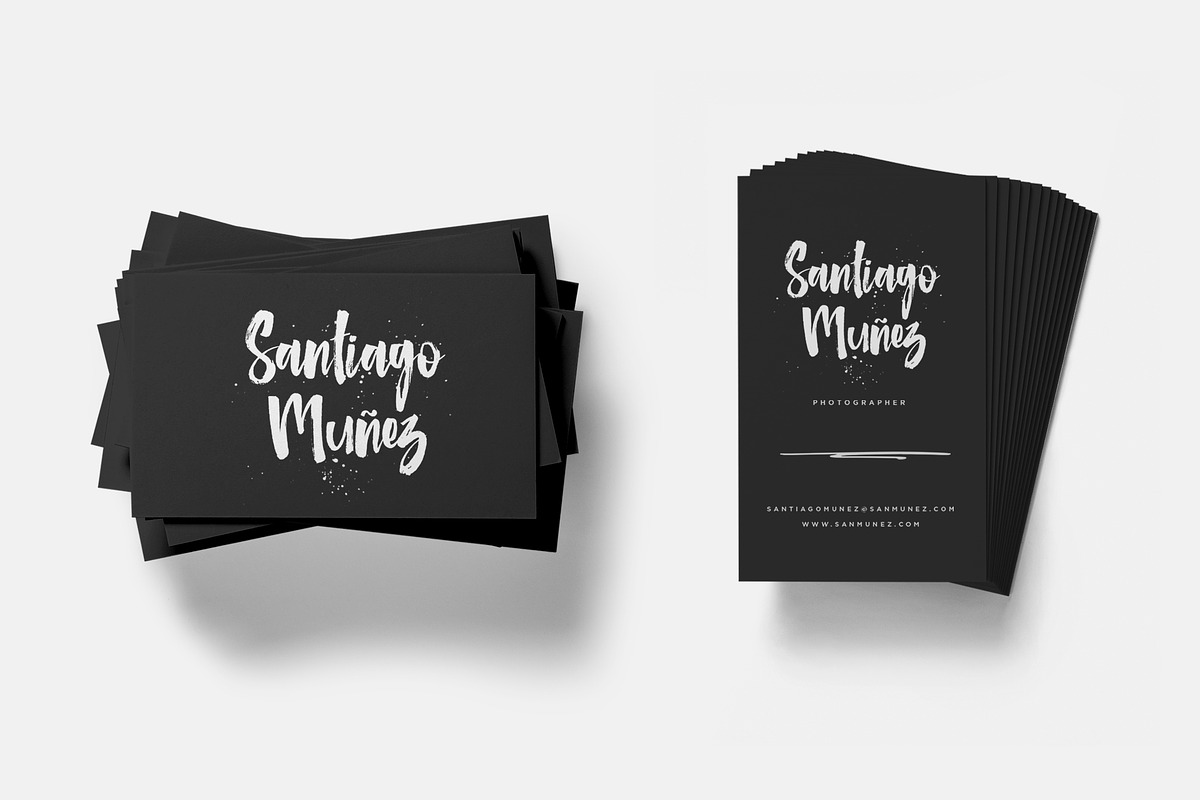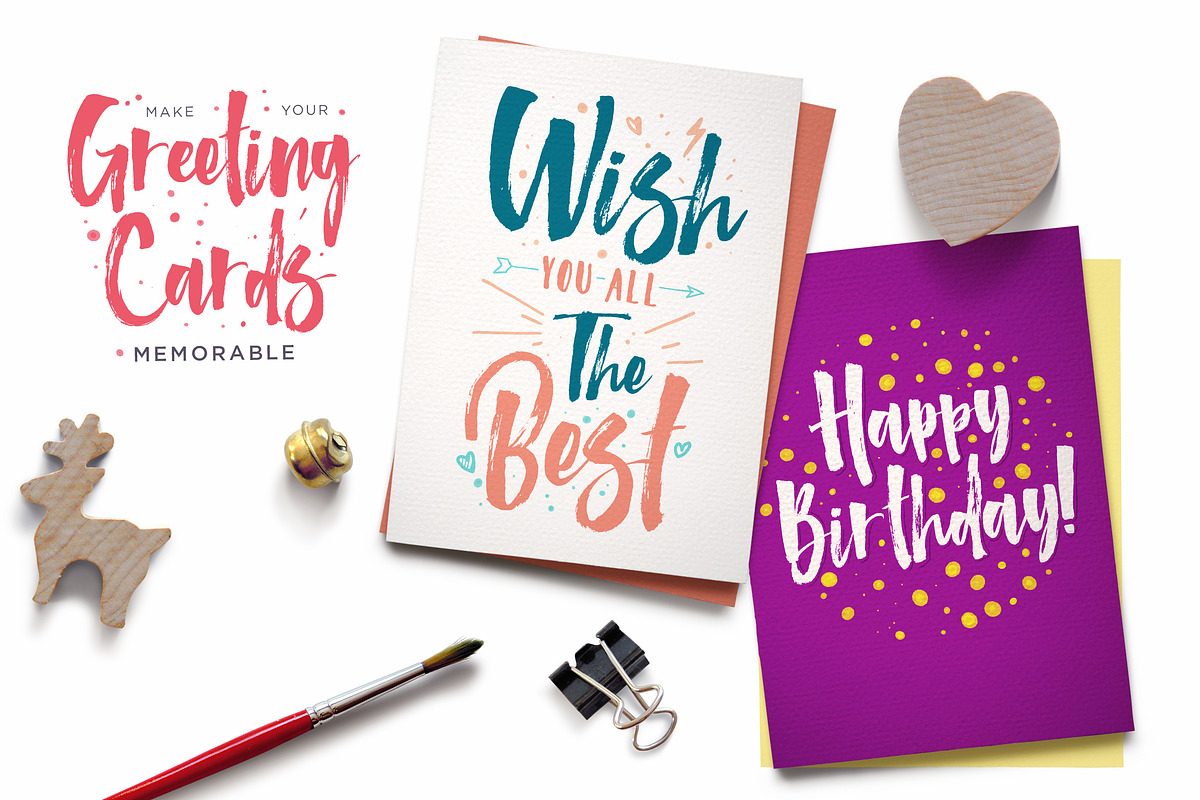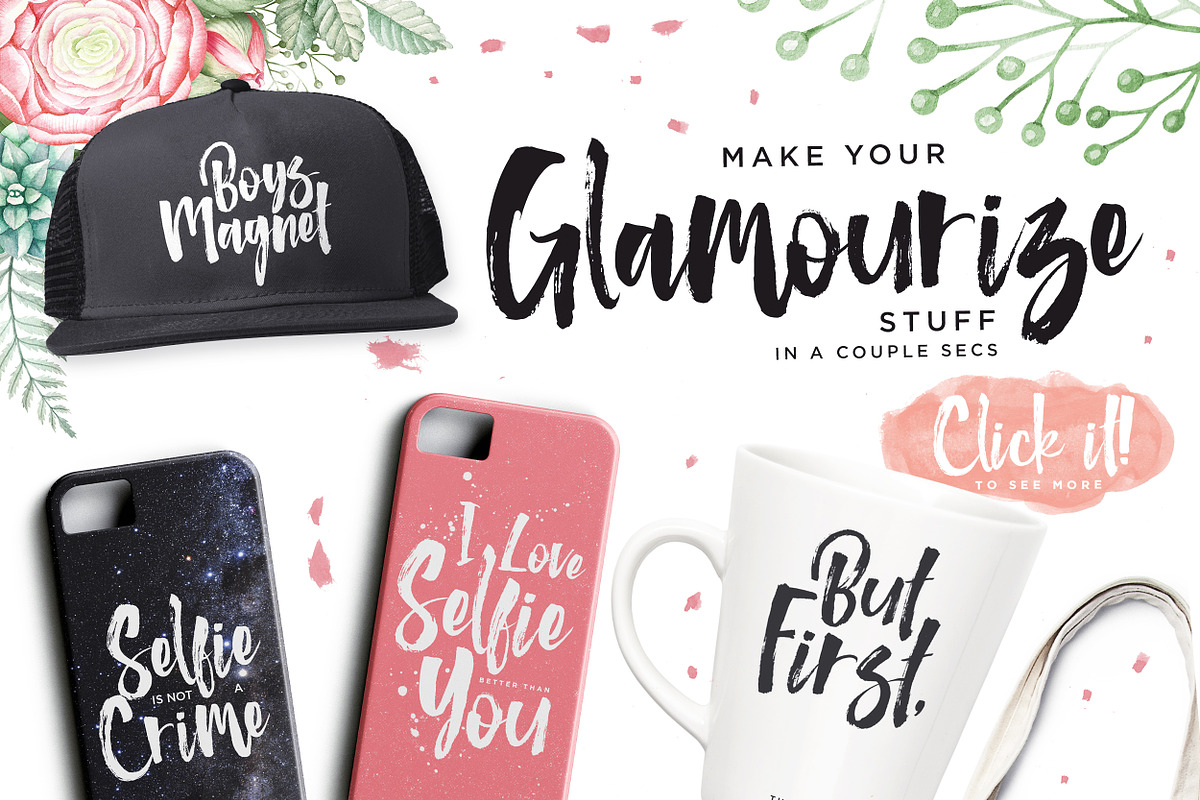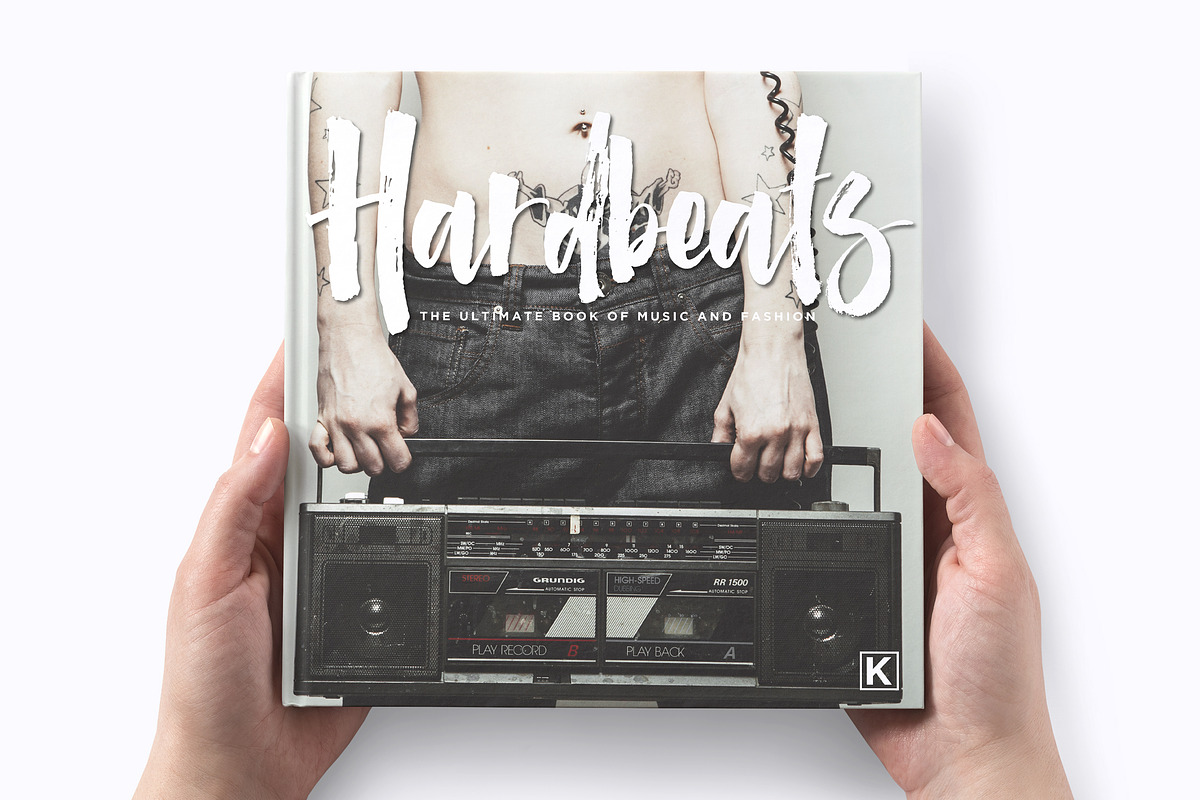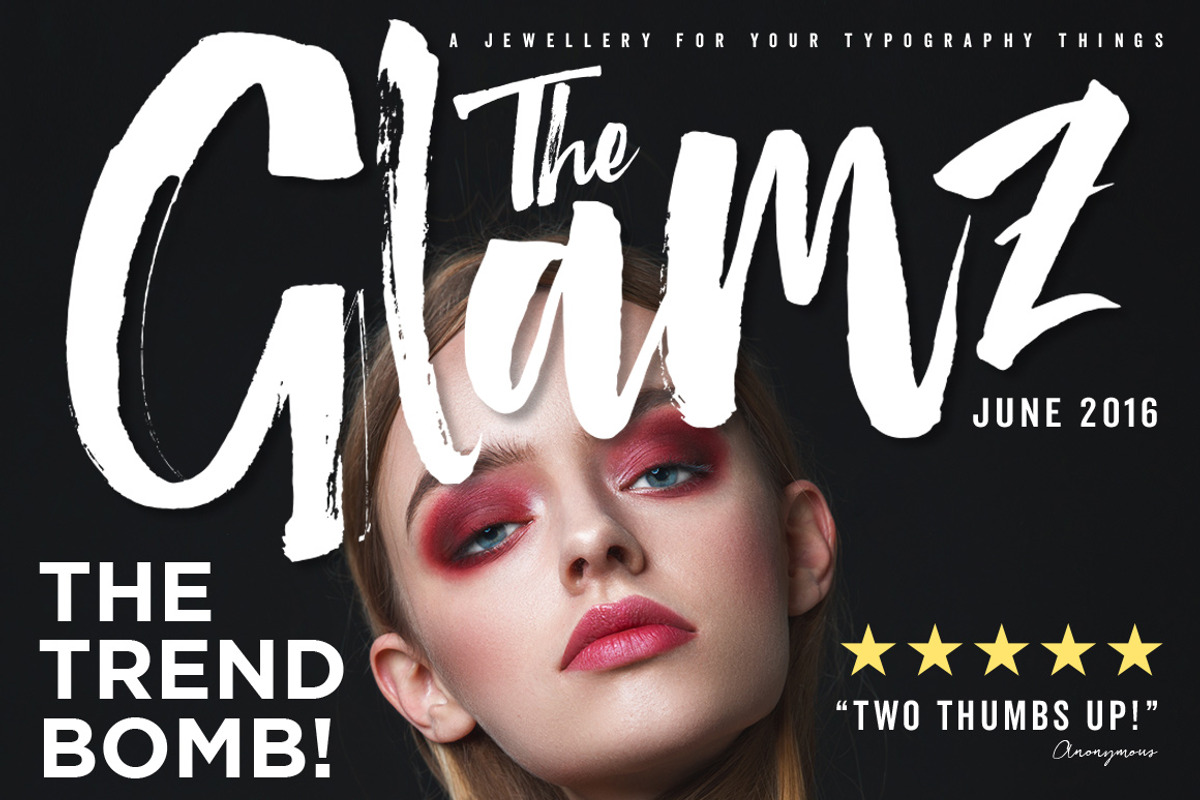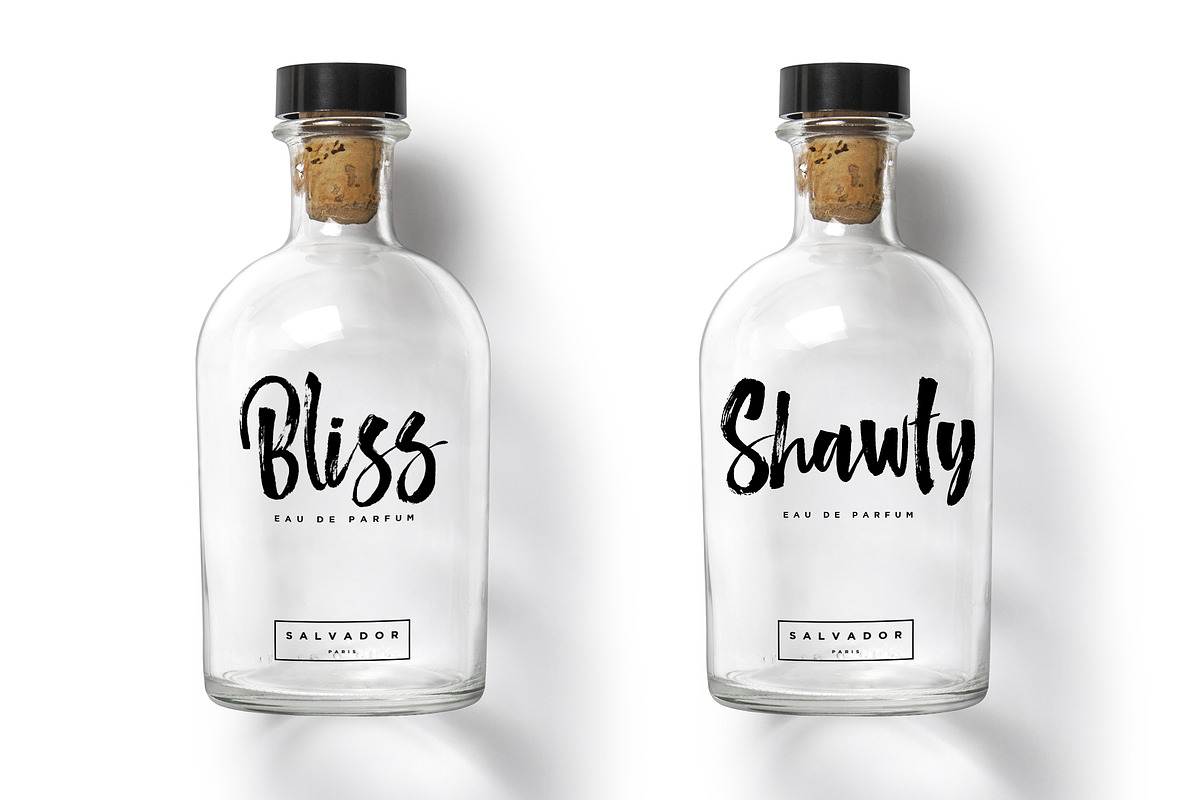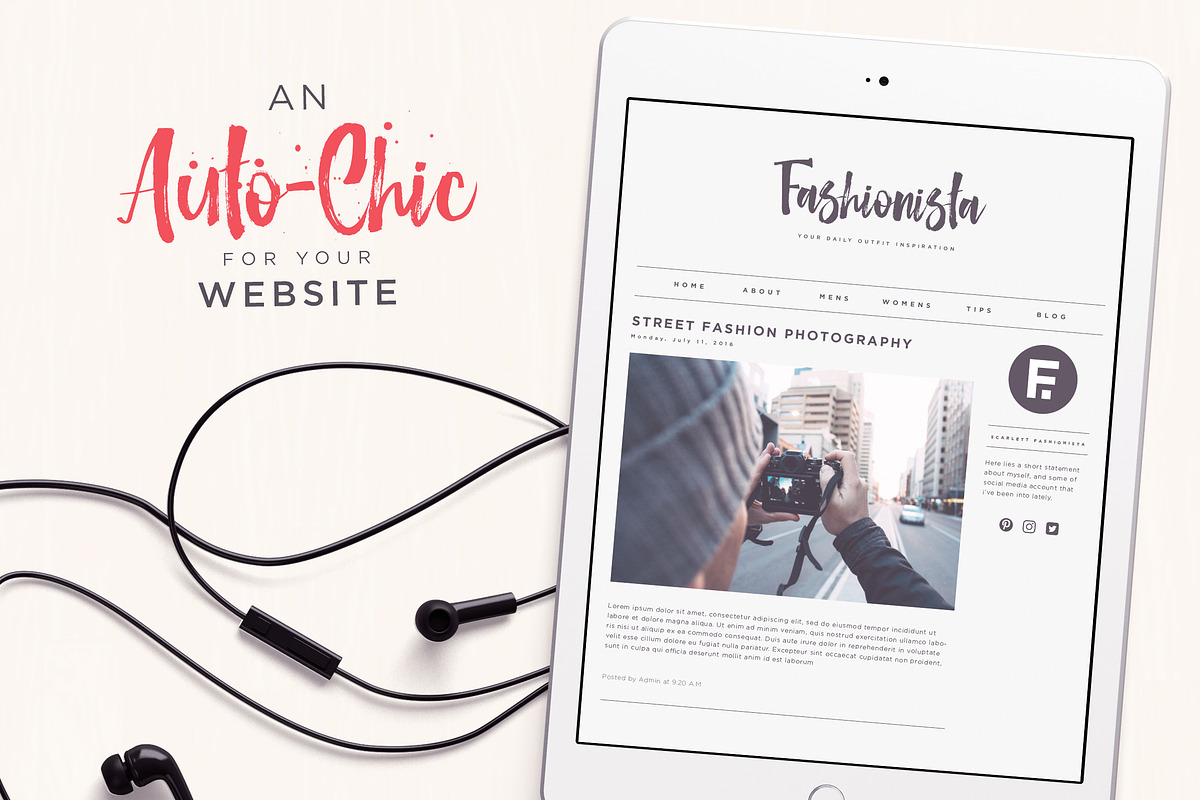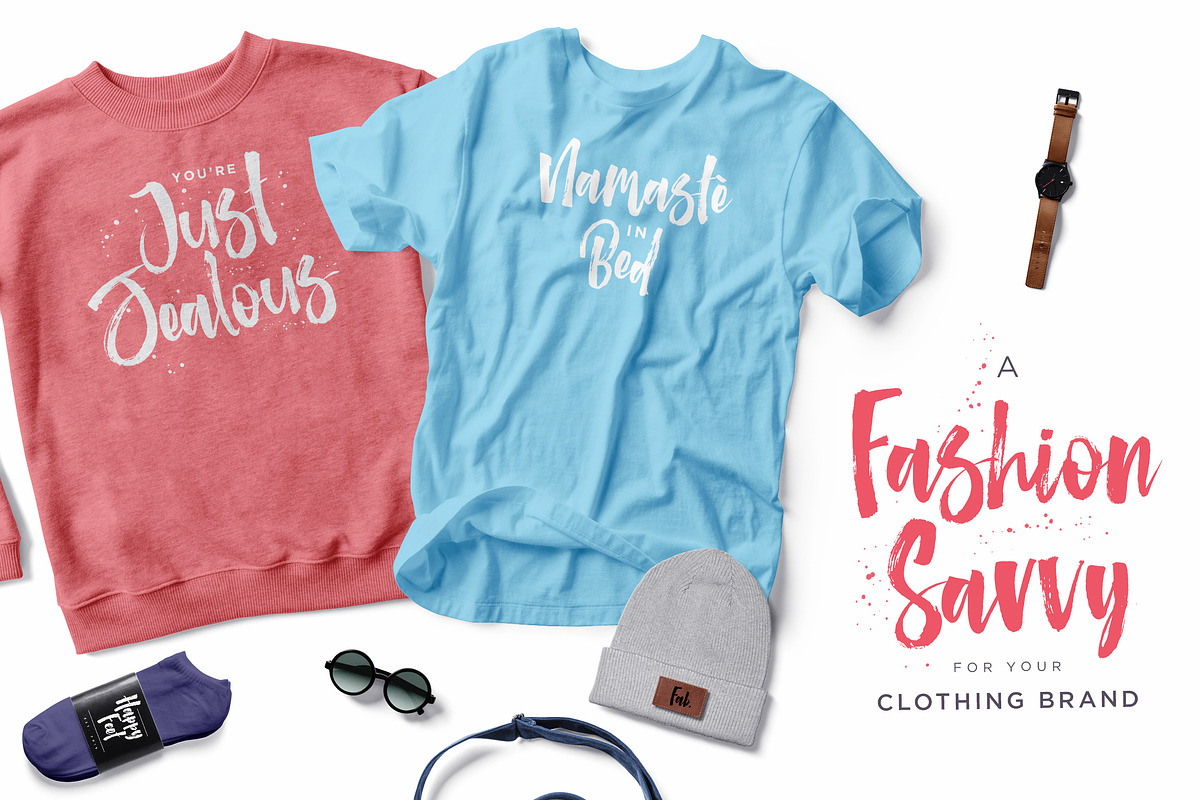
The Glamz watercolor brush logo font
The Glamz watercolor brush logo font by Ian Irwanwismoyo is a font selected for branding, posters, packaging, typography.
Why The Glamz watercolor brush logo font is worth a look
The Glamz watercolor brush logo font by Ian Irwanwismoyo fits naturally into Branding, posters, packaging, typography.